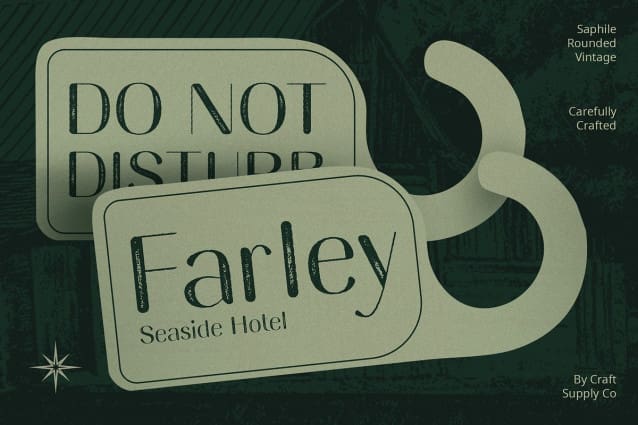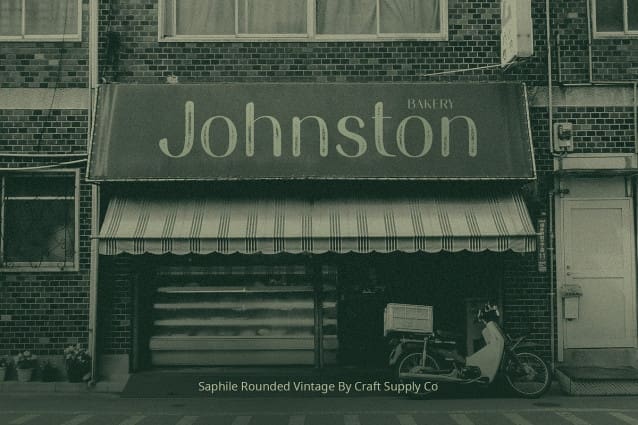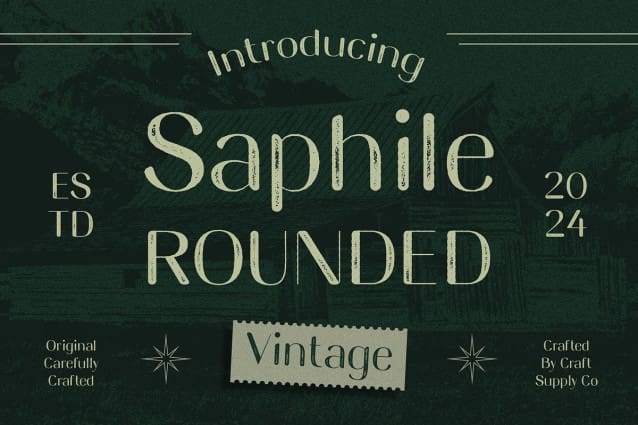
Saphile Rounded Vintage Font
Saphile Rounded Vintage Font: A Vintage Delight. Retro-Inspired Display Font Saphile Rounded Vintage presents a sans serif display font with high contrast and a distinct vintage vibe. Its unique stamp rough drawn effect adds character and nostalgia to any design project.
High Contrast Elegance Defined by its high contrast strokes, This font exudes elegance and sophistication. Each letter is meticulously crafted to capture attention and evoke a sense of timeless charm.
Vintage Appeal with a Modern Twist Combining vintage aesthetics with modern design elements, This font strikes the perfect balance between old-school allure and contemporary appeal. Its rough drawn effect adds a touch of authenticity and character to any project.
Versatile Application Ideal for a wide range of design applications, This font shines in branding, packaging, editorial design, and more. Its vintage charm and high contrast make it a versatile choice for projects seeking a bold and impactful visual statement.
A Nostalgic Journey This font takes you on a nostalgic journey with its vintage-inspired design and high contrast elegance. Whether used in print or digital media, it adds a unique flair and retro charm to any project, making it a must-have for designers seeking to evoke a sense of vintage nostalgia.